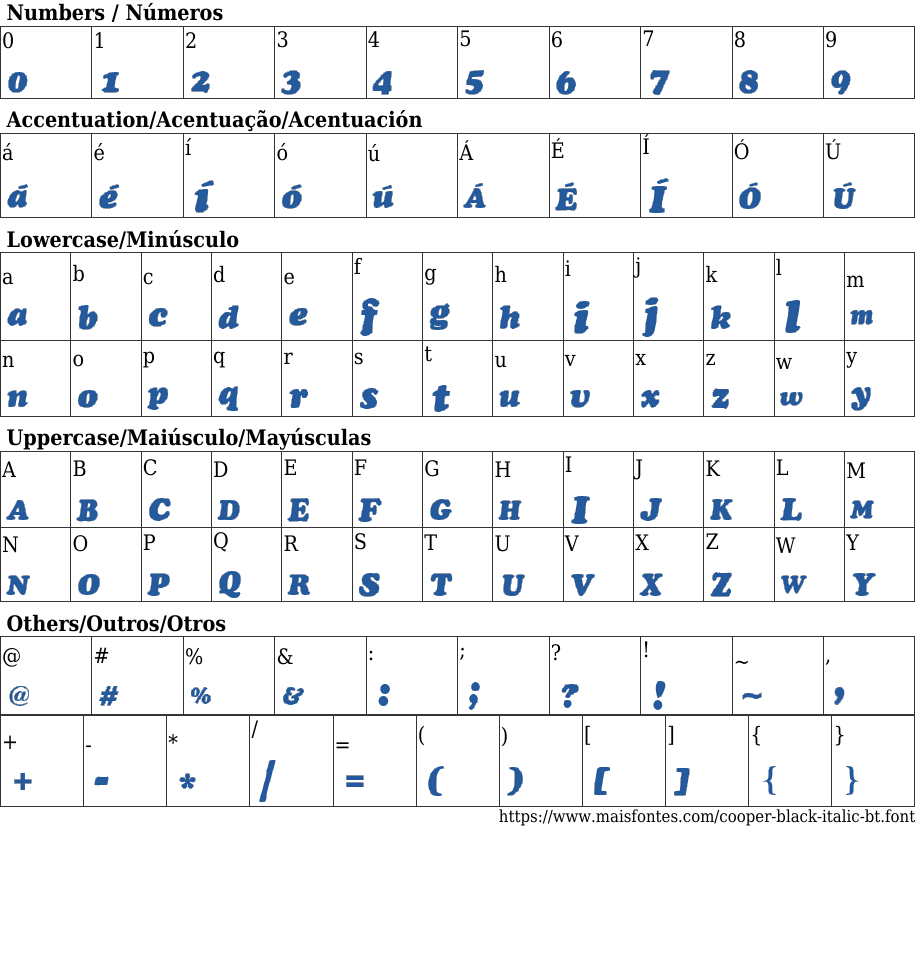
Cooper Black Italic Font
Cooper Black Italic Font - Download cooper black italic font. Cooper black italic by wordshape a bold, rounded, and playful italic font. Installable on pc, mac, linux, ios, and android platforms. Discover the free cooper std black italic font at free font download !